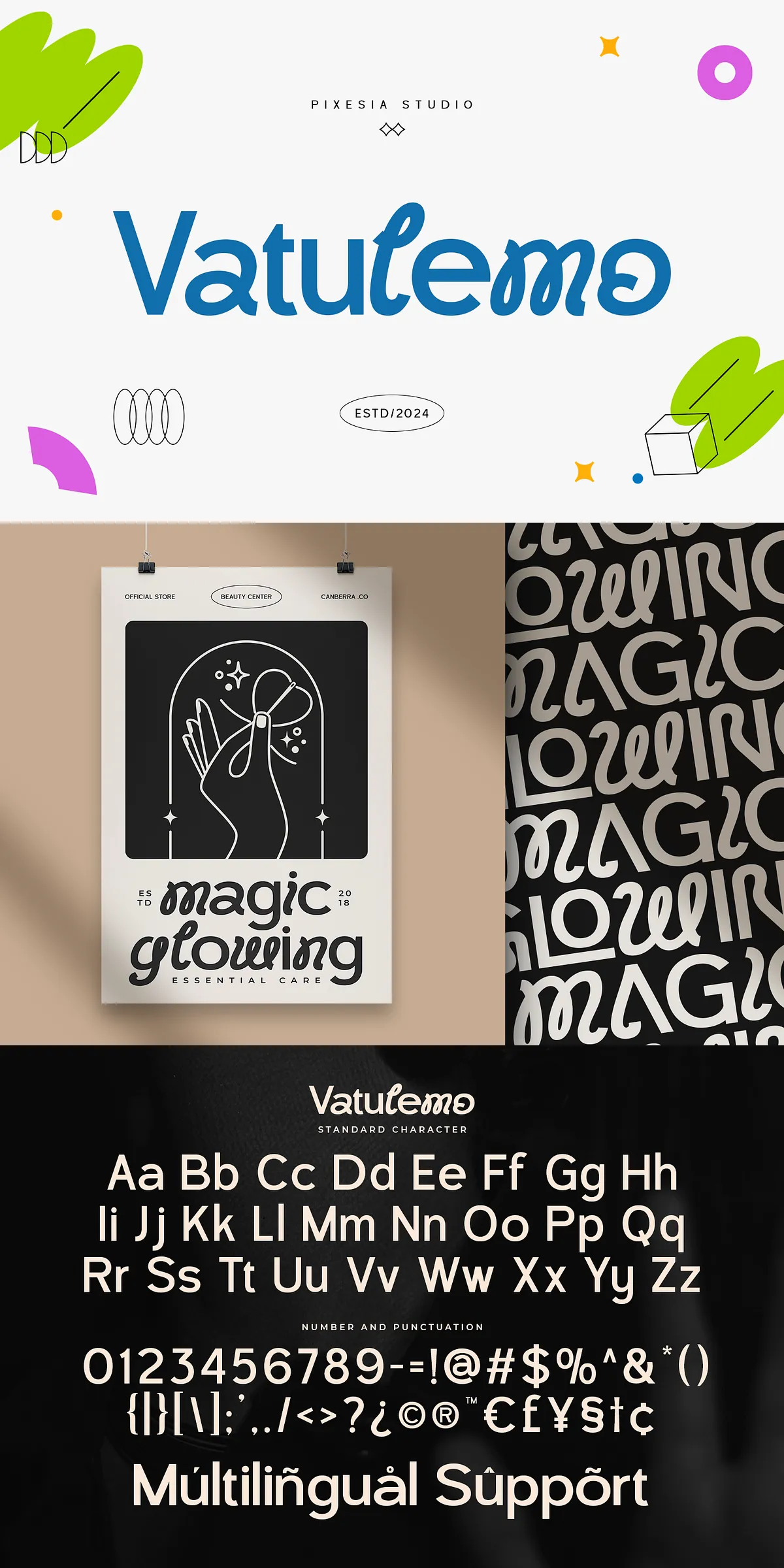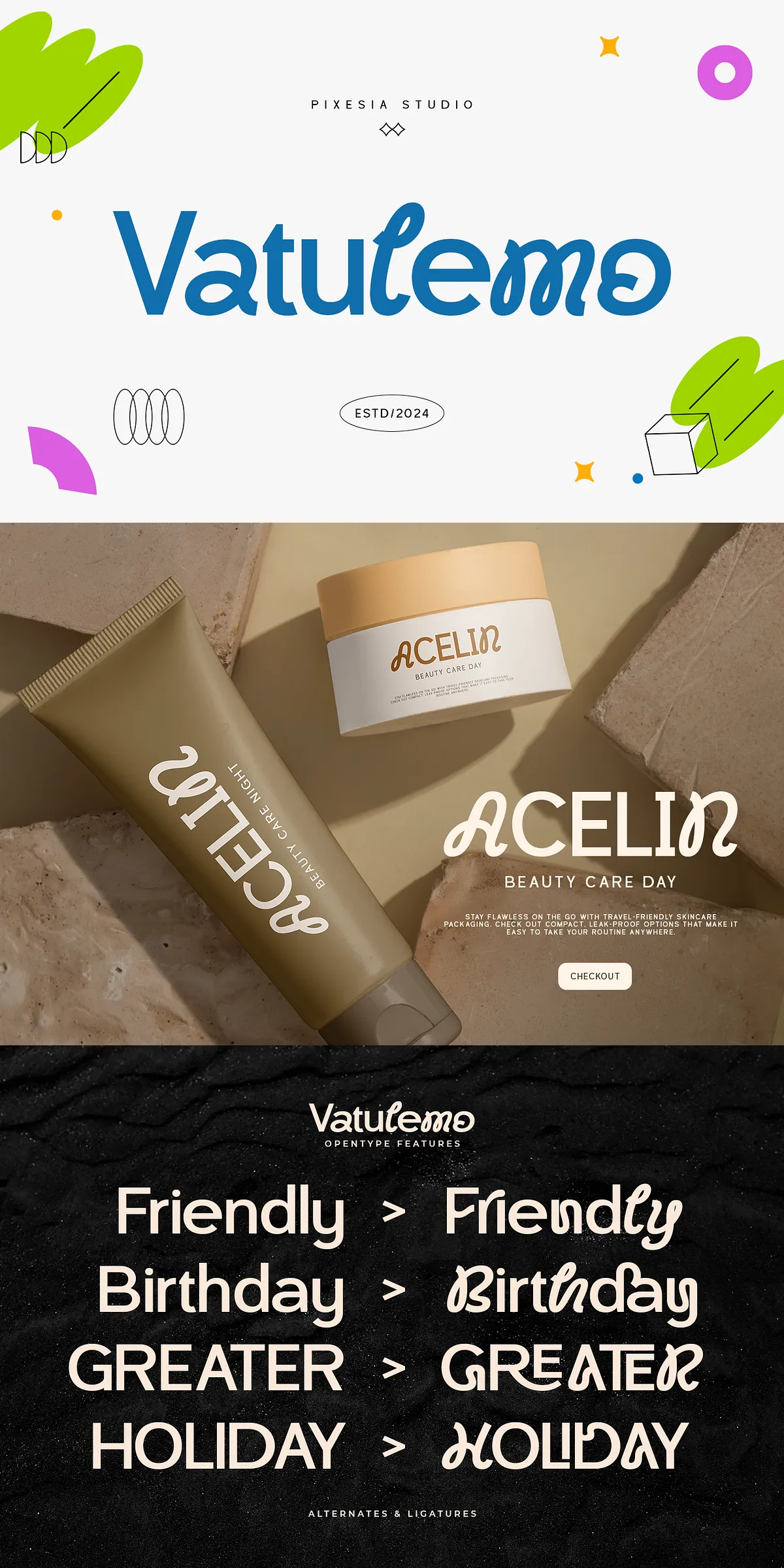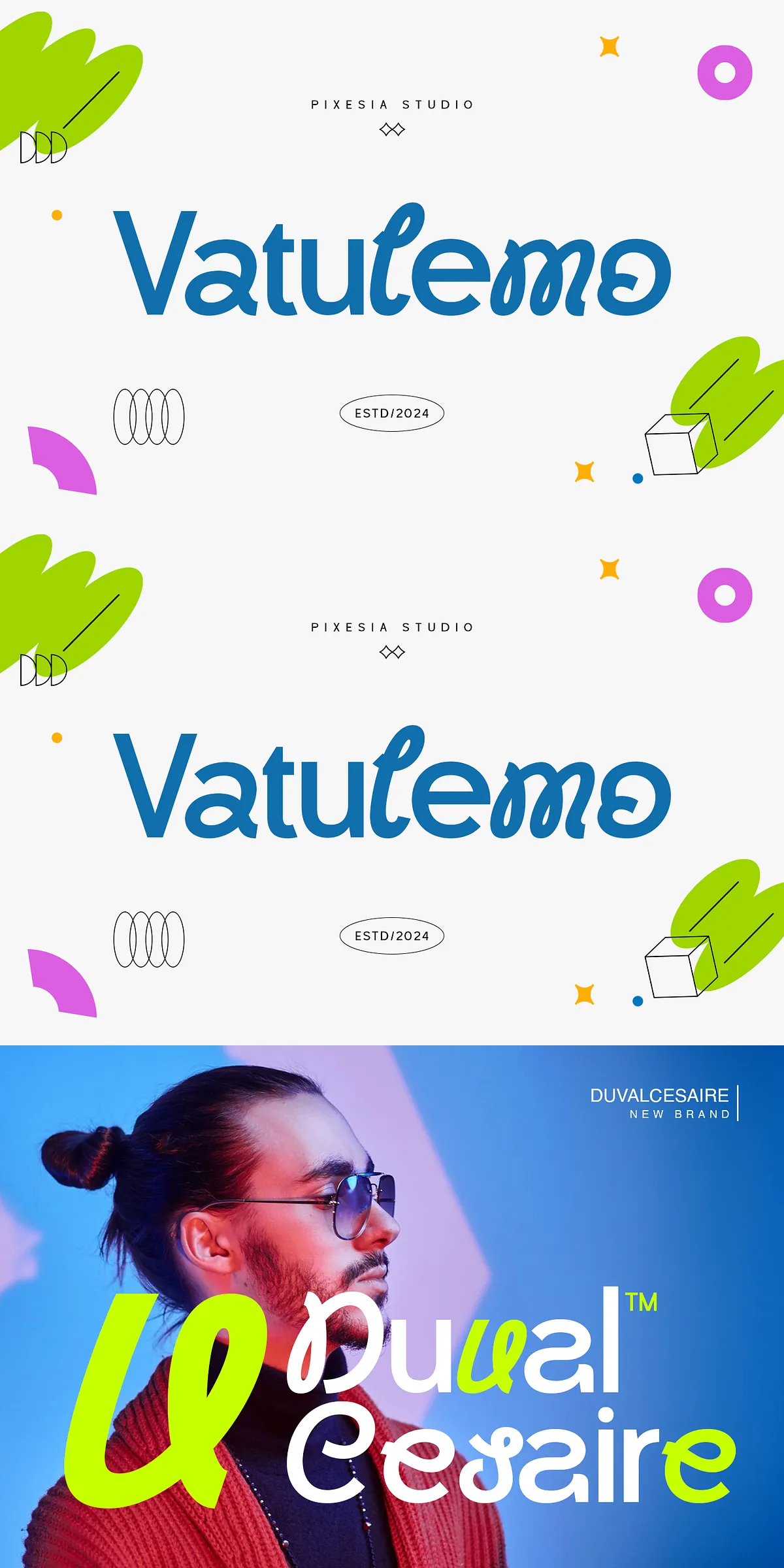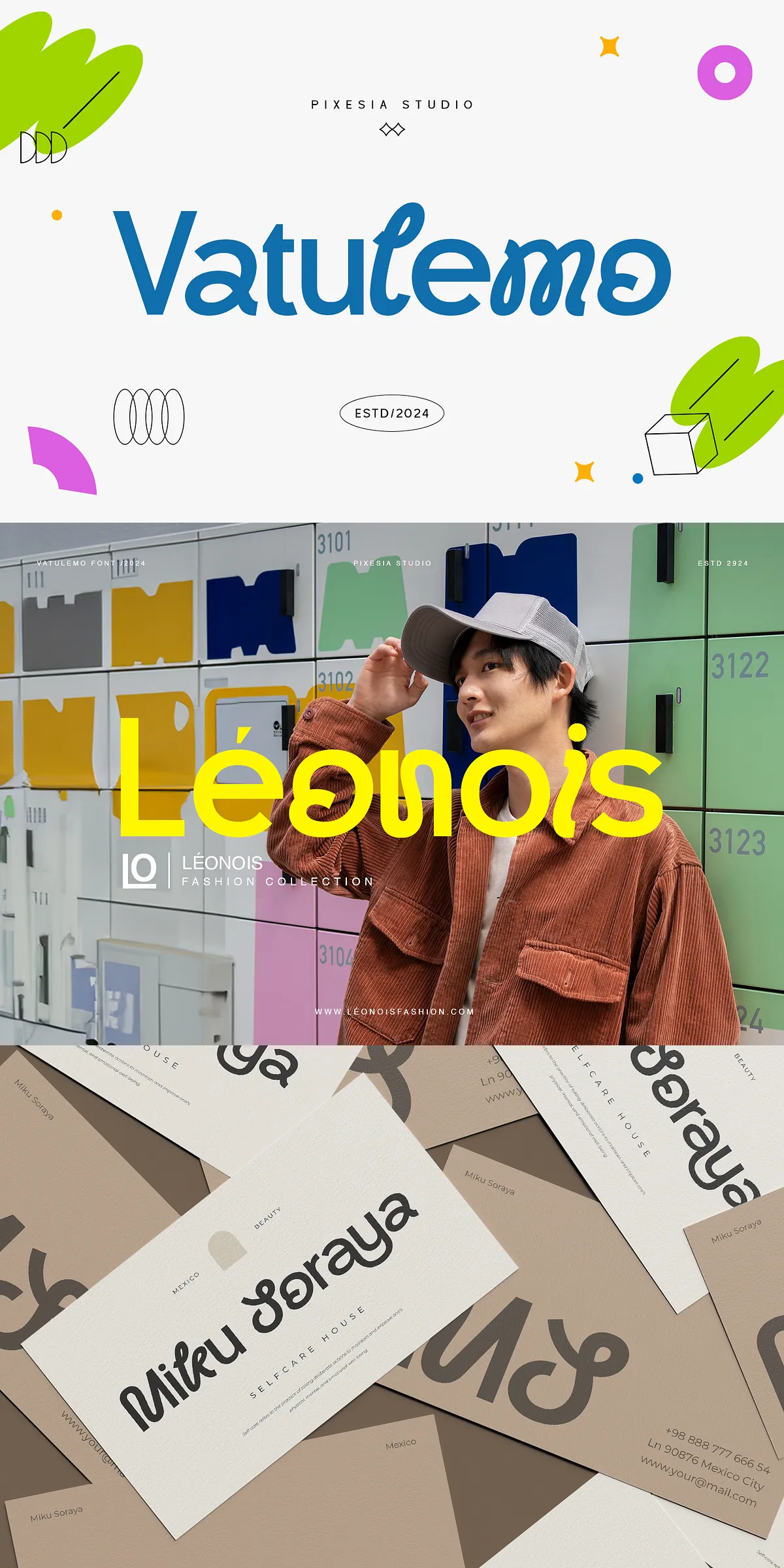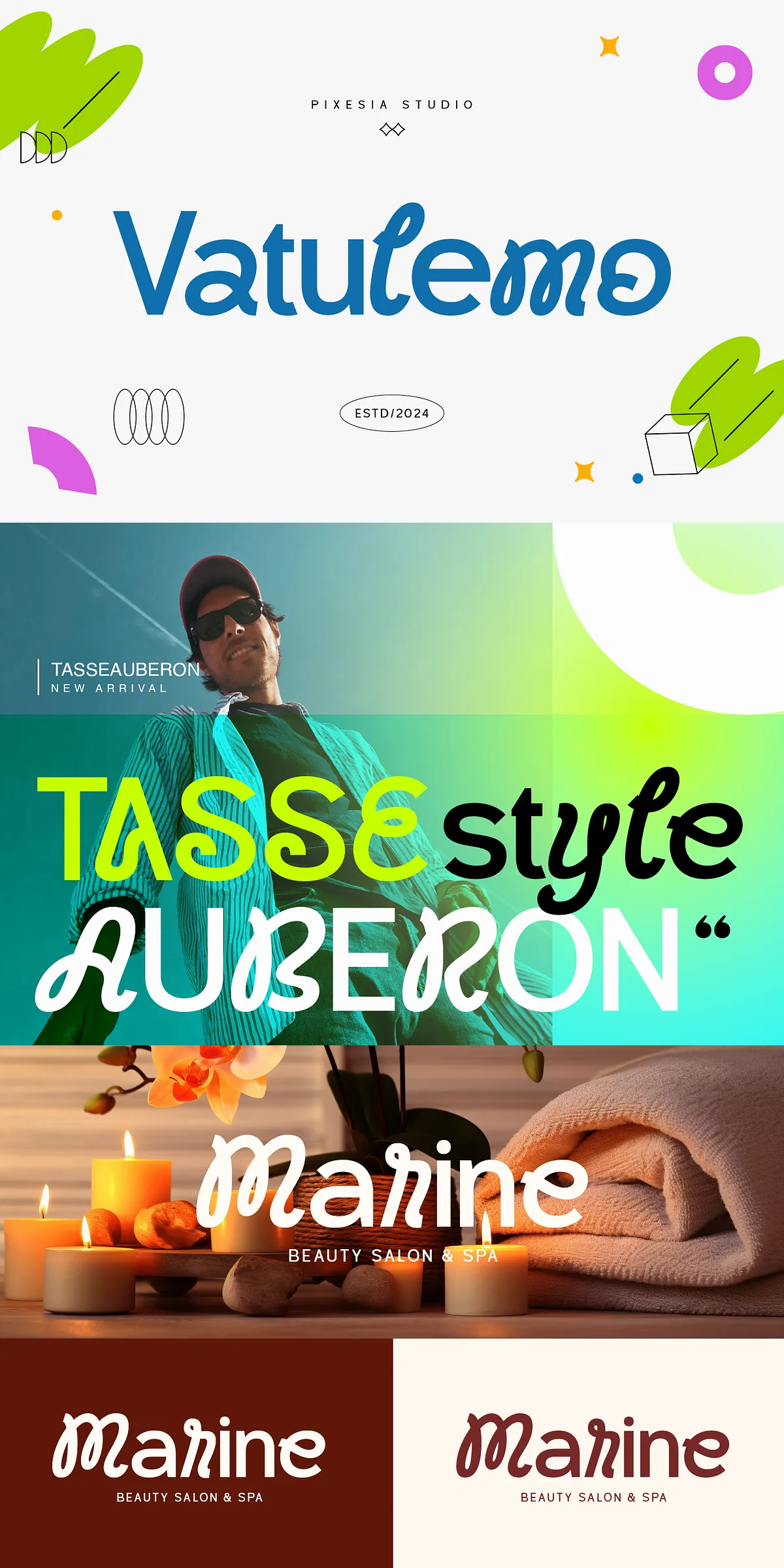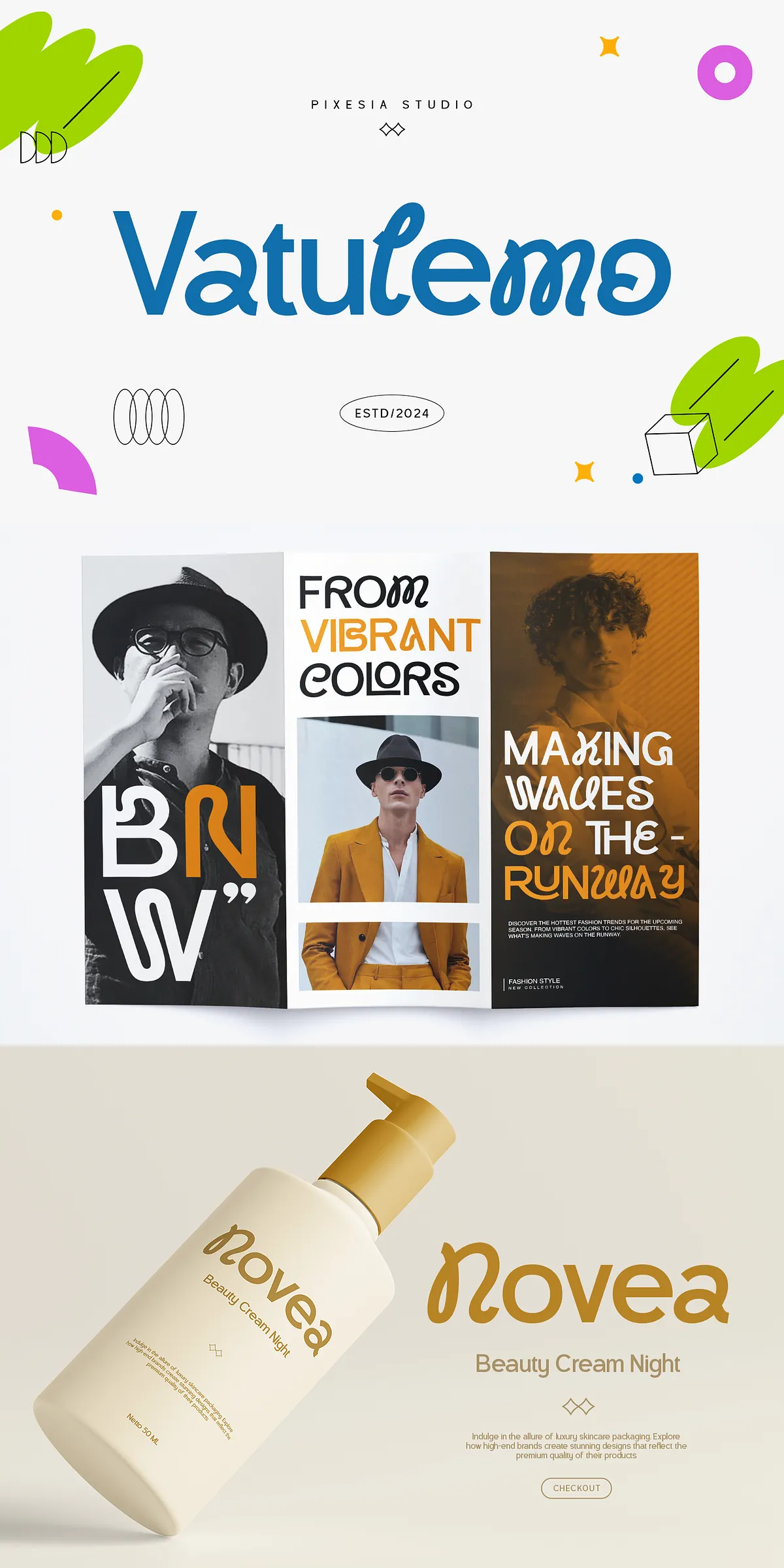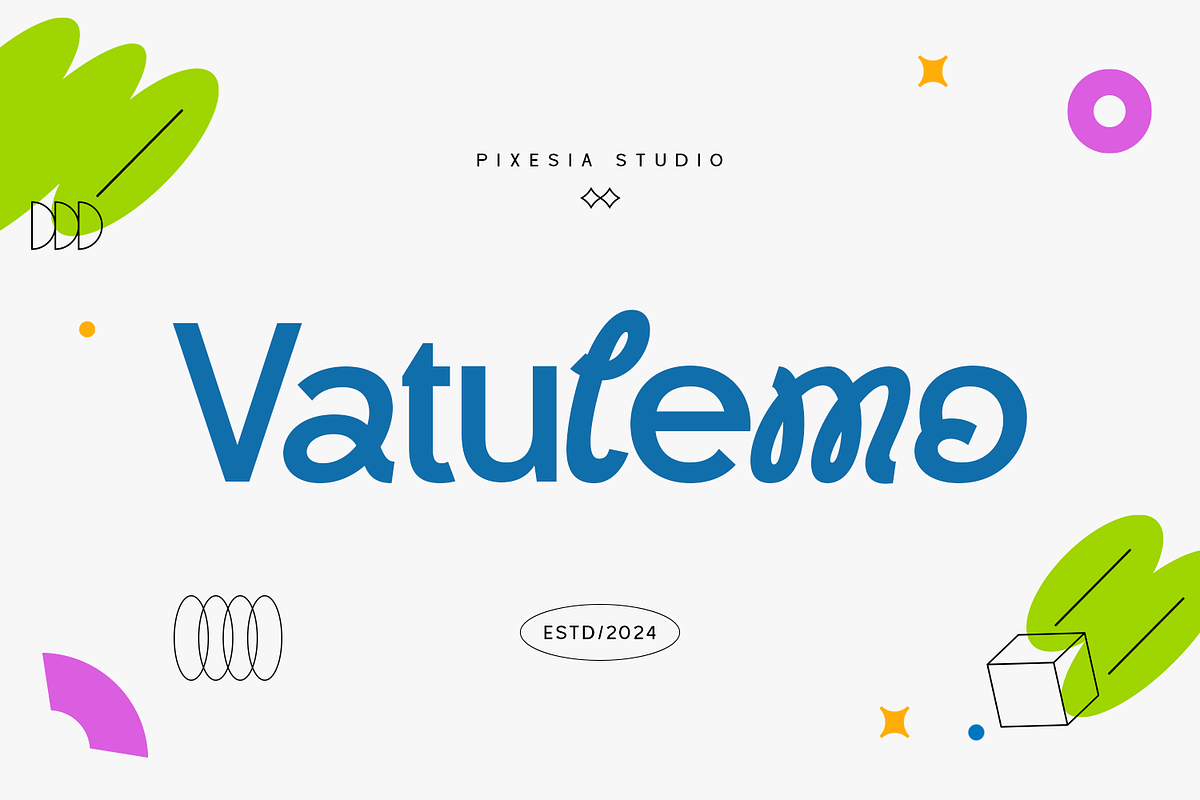
Vatulemo – Experimental Sans Serif
Step into a new era of typographic expression with Vatulemo — an experimental yet refined sans-serif font designed for creators who crave distinction. With its sleek, contemporary structure and daring use of fluid curves and playful loops, Vatulemo breaks the mold of traditional typography while maintaining crisp readability and visual harmony.
Every letterform pulses with energy. The gentle bends, elegant transitions, and subtle tension in the strokes create visual rhythm that captivates the eye — transforming text into dynamic visual storytelling. Whether you’re crafting a bold logotype or composing a social media post, Vatulemo ensures your message stands out with elegance and confidence.
Engineered for Creativity: Advanced Design Features
Vatulemo isn’t just visually striking — it’s built for real-world creative workflows. It brings a suite of powerful typographic tools to your fingertips:
• Stylistic Alternates: Access unique variations of key glyphs to add diversity and visual interest to your text.
• Ligatures: Enjoy smoother, cleaner text flow, especially in tightly-knit word combinations.
• Full Uppercase & Lowercase Support: Perfect for both branding headlines and body text.
• Complete Numbering & Punctuation: From decimals to quotation marks, all symbols are finely crafted and consistent.
• PUA Encoded Characters: Easily access special glyphs and decorative elements without needing extra design software — simply input the Unicode via character map.
Designed for Global Expression: Multilingual Support
Vatulemo speaks more than just English. It embraces the global design community with comprehensive multilingual support, including:
• Afrikaans, Albanian, Basque
• Catalan, Danish, Dutch, English
• Estonian, Faroese, Filipino, Finnish
• French, Galician, German, Icelandic
• Indonesian, Irish, Italian, Malay
• Norwegian Bokmål, Portuguese, Spanish
• Swahili, Swedish, Zulu
No matter your target audience, Vatulemo delivers consistent, professional typography across languages — ideal for international branding and inclusive design projects.
Unleash Your Brand’s Unique Voice
Whether you’re building a lifestyle brand, launching a fashion label, designing product packaging, or creating digital ads, Vatulemo gives your visuals a refined, contemporary edge. It combines modern minimalism with a touch of artistic flair — the perfect balance for brands that stand out without shouting.
Top Applications for Vatulemo
• Logo & Branding Design: Craft memorable logos that communicate innovation and sophistication.
• Product Packaging & Labels: Elevate your product’s aesthetic with a modern, premium look.
• Social Media Graphics & Posts: Command attention on Instagram, TikTok, and Facebook with visually compelling text.
• Website Headers & UI Typography: Use with confidence in web design for clean, bold headlines.
• Invitations, Stationery & Greeting Cards: Add a touch of refined elegance to personal and professional communications.
• Photography & Watermark Text: Overlay text with style, not distraction.
• T-Shirt & Apparel Design: Bring your creative visions to life in wearable art.
Create with Confidence. Design with Purpose.
Vatulemo isn’t just a font — it’s a declaration. A statement that bold design doesn’t have to be loud, and that elegance can coexist with experimentation. Whether you’re a seasoned designer or a brand founder building your first identity, Vatulemo gives you the tools to tell your story with confidence and originality.